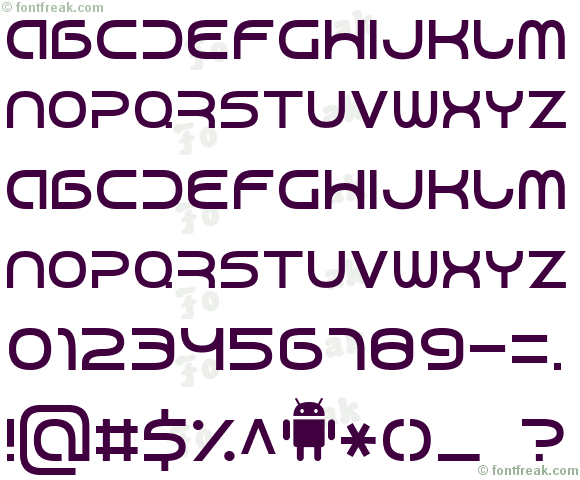
Android 7
About Android 7
The Android 7 font by Style-7 is a striking display typeface that embodies a modern aesthetic, making it ideal for various creative applications. As a decorative font, it features a unique blend of playful and contemporary elements, characterized by its bold stroke weight and clean, geometric lines. The letters are well-spaced, enhancing readability while maintaining an eye-catching presence, making the font suitable for both digital and print media.
Visually, Android 7 showcases a minimalistic design that incorporates rounded edges and a uniform contrast, lending it a friendly yet professional vibe. This makes it particularly effective in applications such as product branding, where a modern look is essential. Additionally, the font shines in promotional materials, including flyers and advertisements, where it can draw attention without overwhelming the viewer. Other great use cases include social media graphics, website headers, and event signage, where its unique character can help to convey a specific tone or message.
What sets the Android 7 font apart is its blend of familiarity and modernity, making it a perfect choice for those who wish to create engaging and visually appealing designs. The Android 7 font free download ensures that anyone can experiment with this unique typeface, allowing creativity to flourish in all kinds of design projects. Whether you're working on branding, marketing, or personal projects, Android 7 is a compelling option that won't go unnoticed.